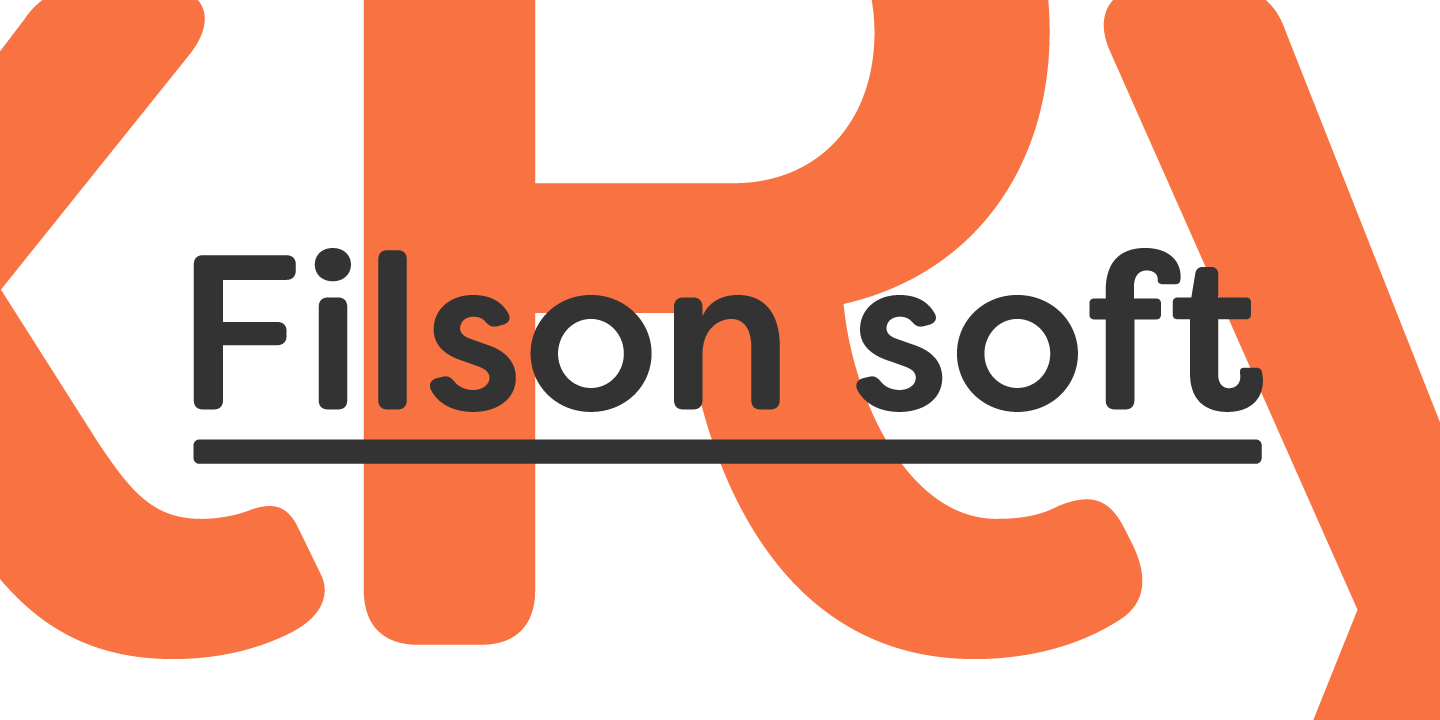
Meet the warmth of modern typography with Filson Soft Font Free Download. This friendly, rounded sans-serif typeface blends clarity with comfort, making it ideal for branding, editorial work, web design, app interfaces, and corporate identities that aim for a more human touch.
Filson Soft features smooth curves and a balanced geometry, giving your text a clean yet approachable tone. Whether you're designing user-friendly websites, sleek product packaging, or inviting marketing materials, this font delivers a polished yet personable feel that enhances readability and appeal.